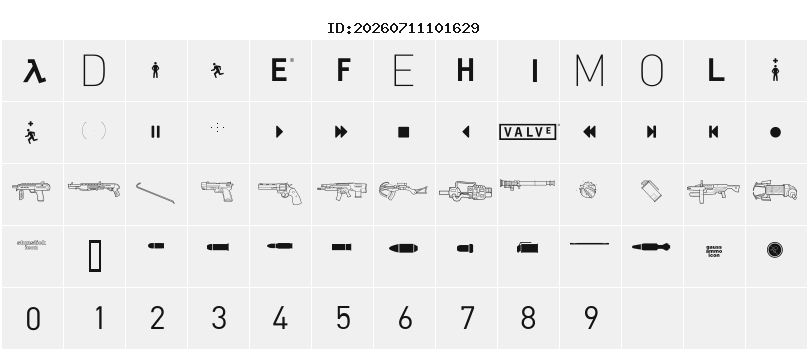
HalfLife2 Preview
• Font Name: HalfLife2
• Font ID: Half-Life 2; (c) Valve Corporation
• Full Font Name: HalfLife2
• PostScript Name: HalfLife2
• Character Count: 94
• Designer: Greg Coomer
About HalfLife2.ttf
HalfLife2.ttf is a modern, elegant sans-serif font designed for ultimate readability and visual harmony. Perfect for branding, headlines, web design, and print materials.